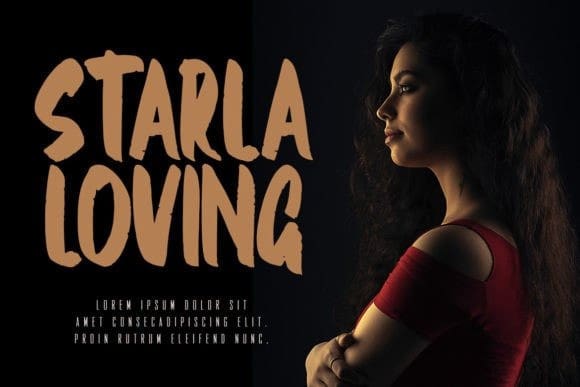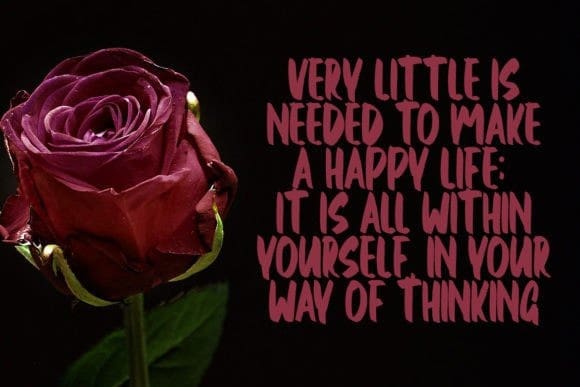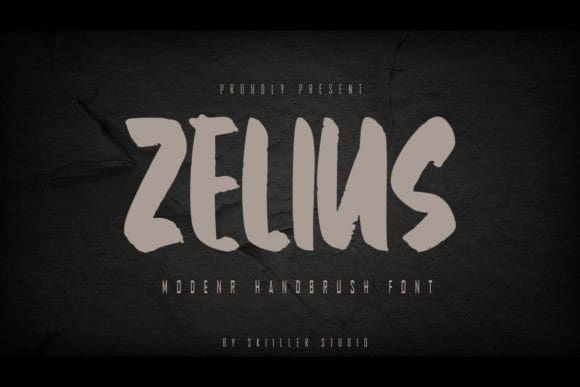
Zelius Brush Font
Zelius Brush Font is a modern and brushed handwritten font, crafted to give your headlines and logotype projects a stylish touch. This font reads as strong, confident, and dynamic and can add tons of urban character to your designs.